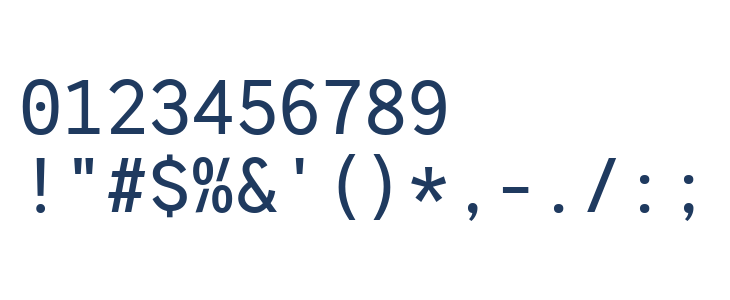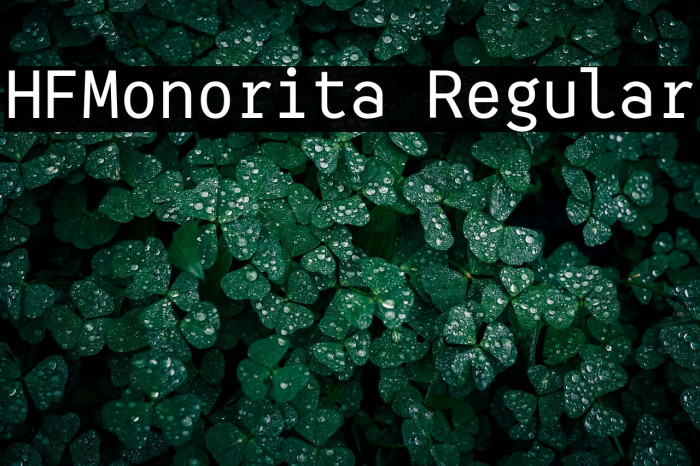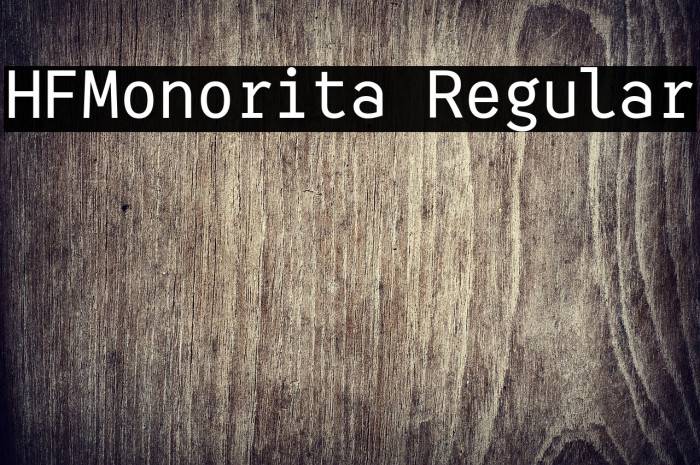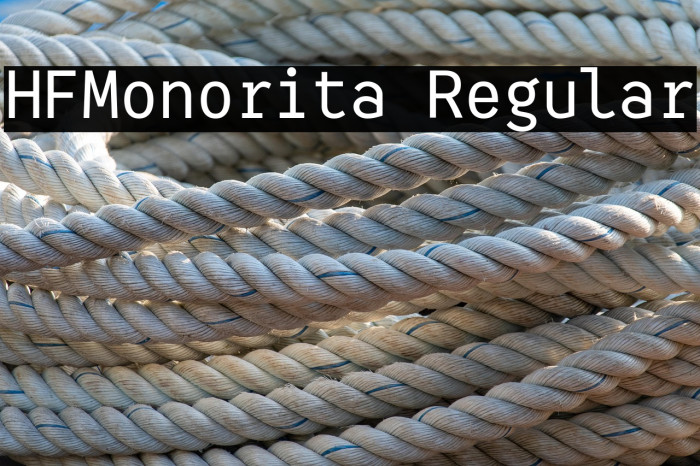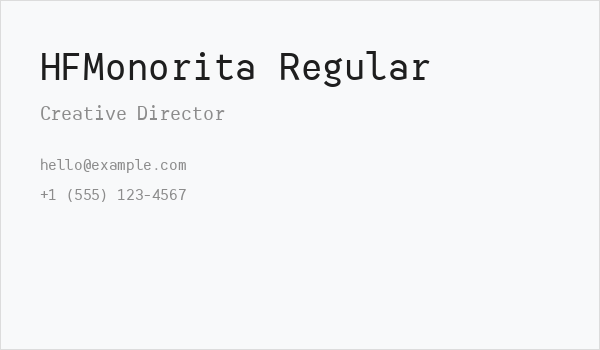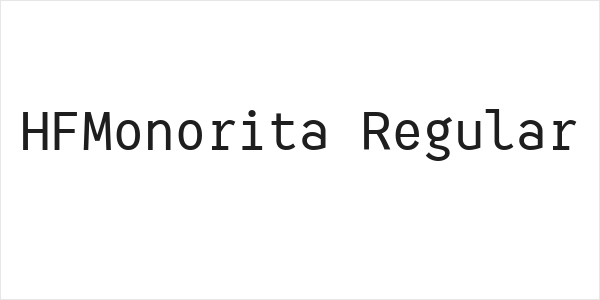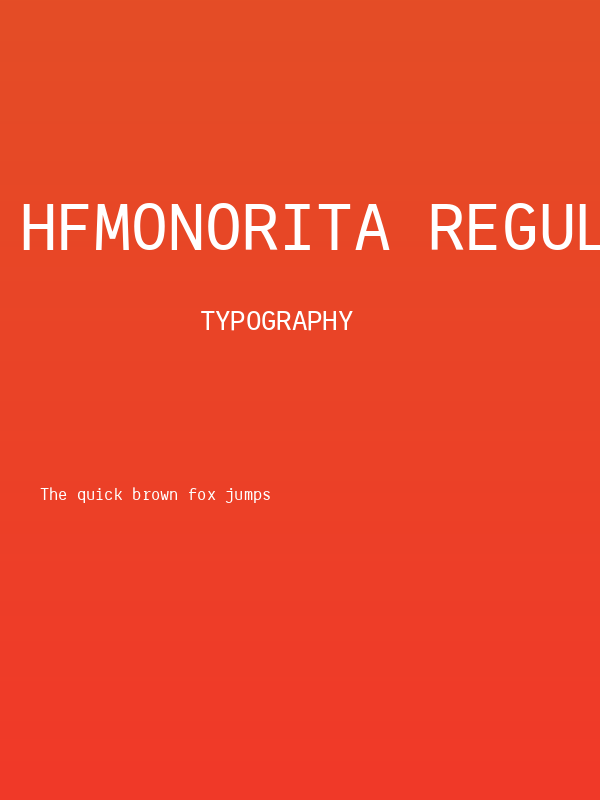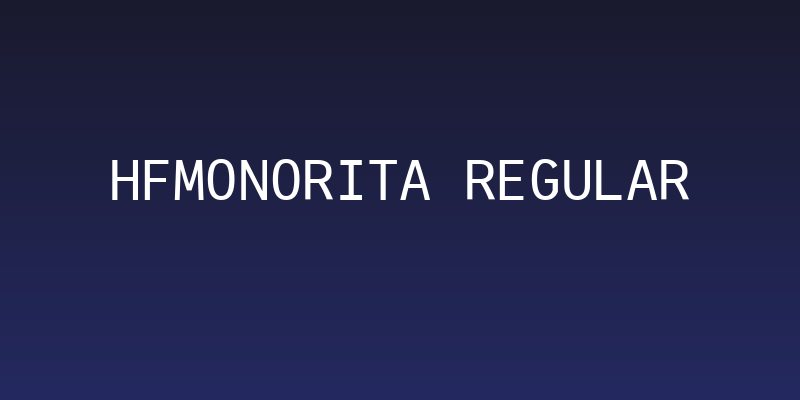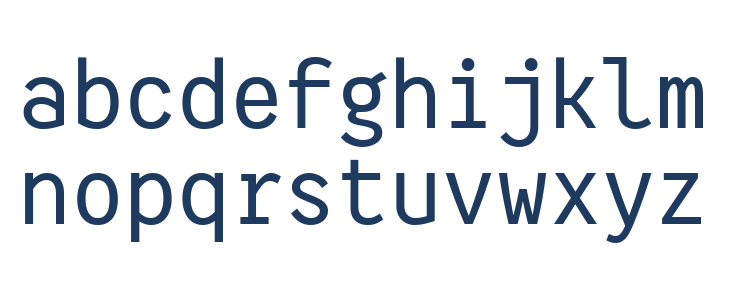
HFMonorita Regular Font
HFMonorita Regular Description
This font features a clean and modern monospaced design, characterized by uniform character width and a straightforward, geometric structure. The uppercase letters are bold and assertive, while the lowercase letters maintain a consistent height and spacing, enhancing readability. The numerals are clear and distinct, making them ideal for data presentation. Special characters are well-defined, ensuring versatility across various applications. The overall appearance is sleek and professional, suitable for both digital and print media.
Use CaseCoding, Technical documentation, Data tables
Proposed ProjectsIdeal for coding environments, technical documentation, data tables, and minimalist design projects.